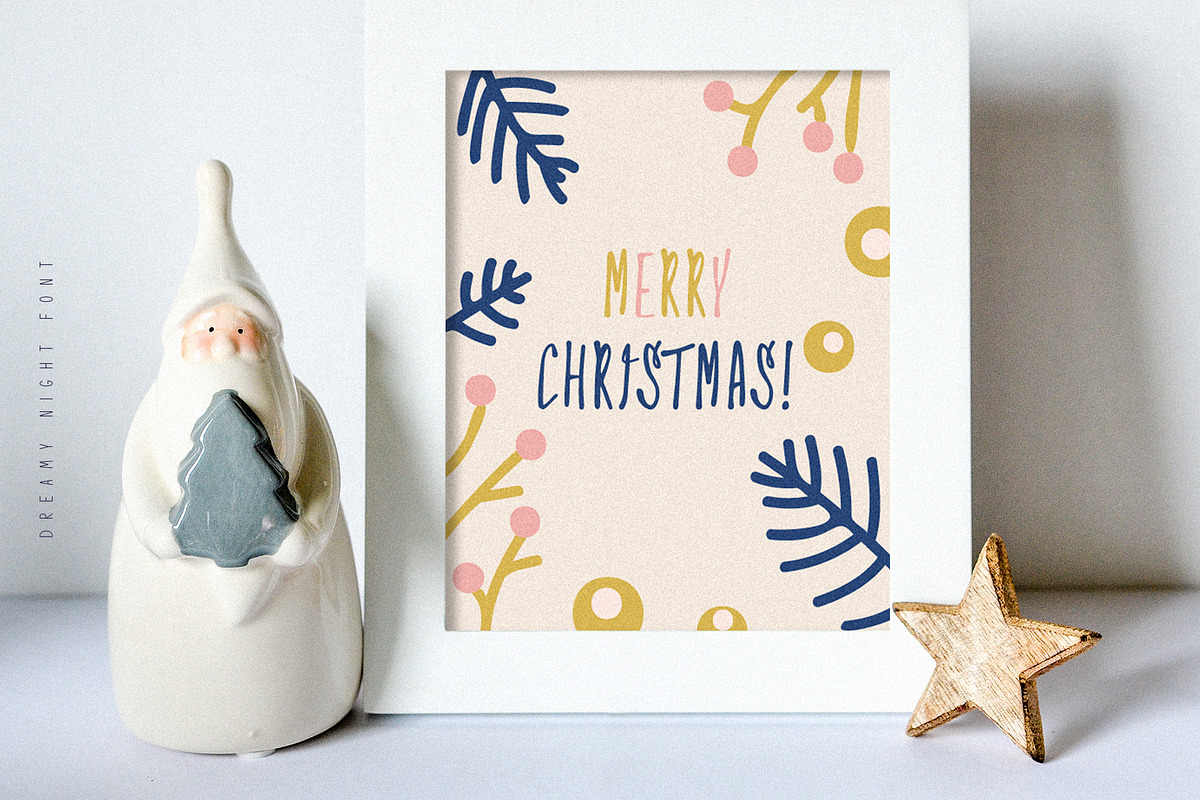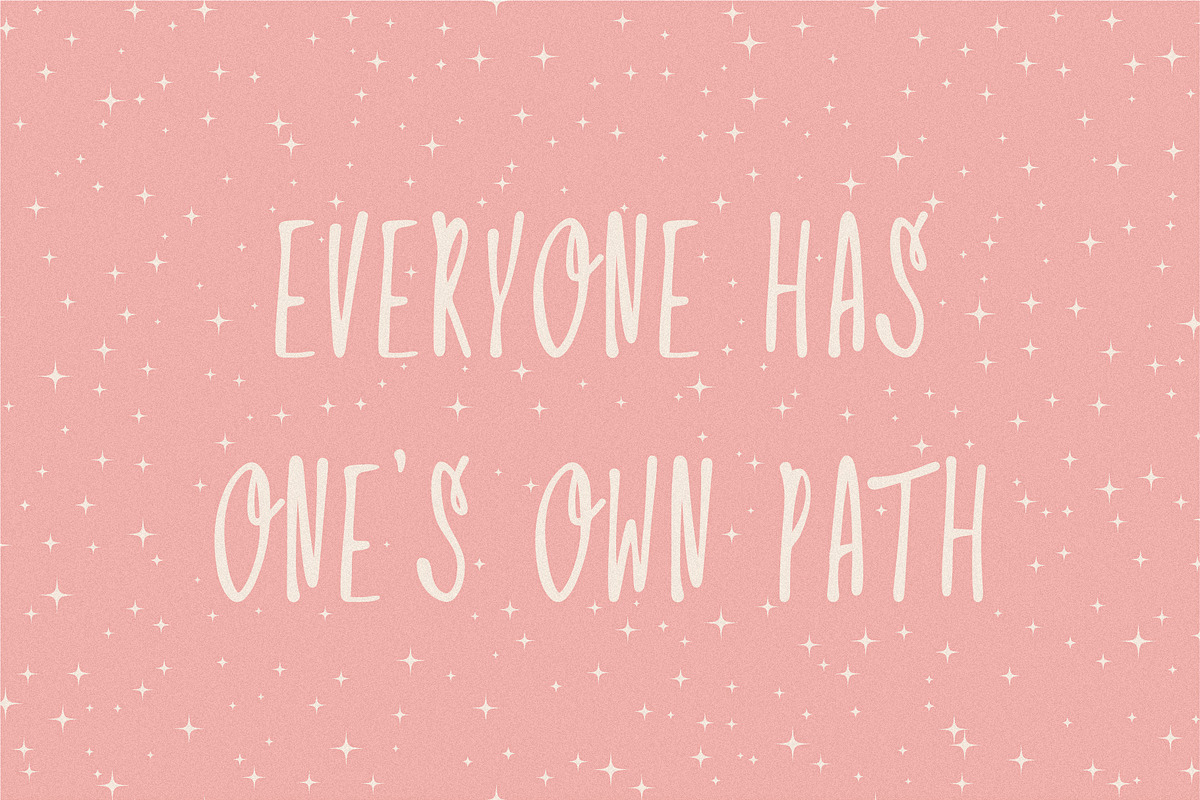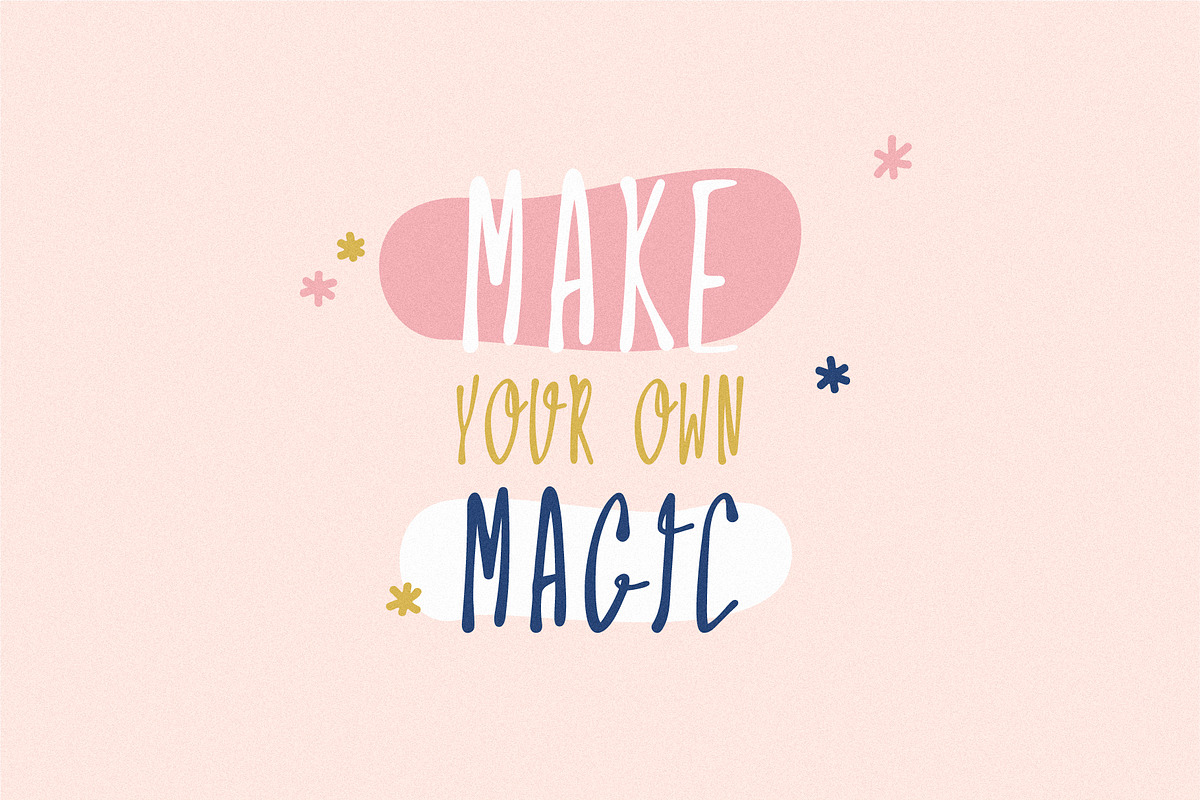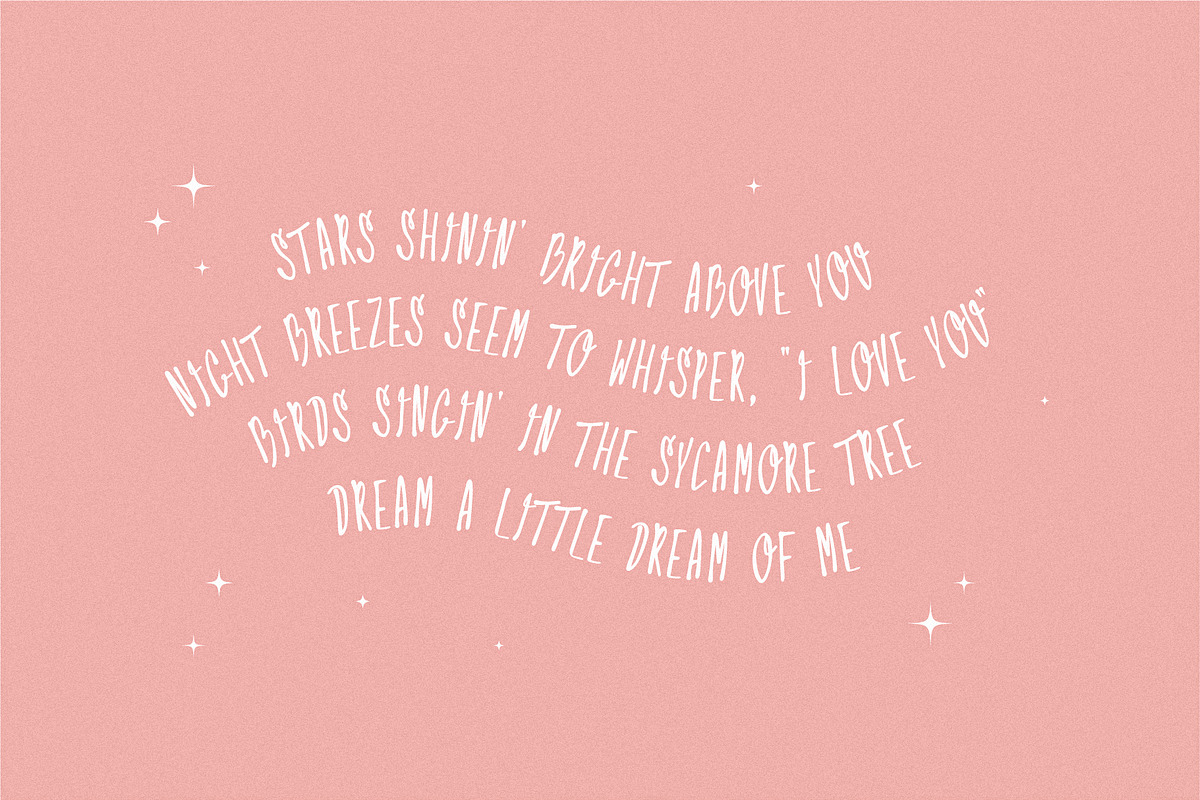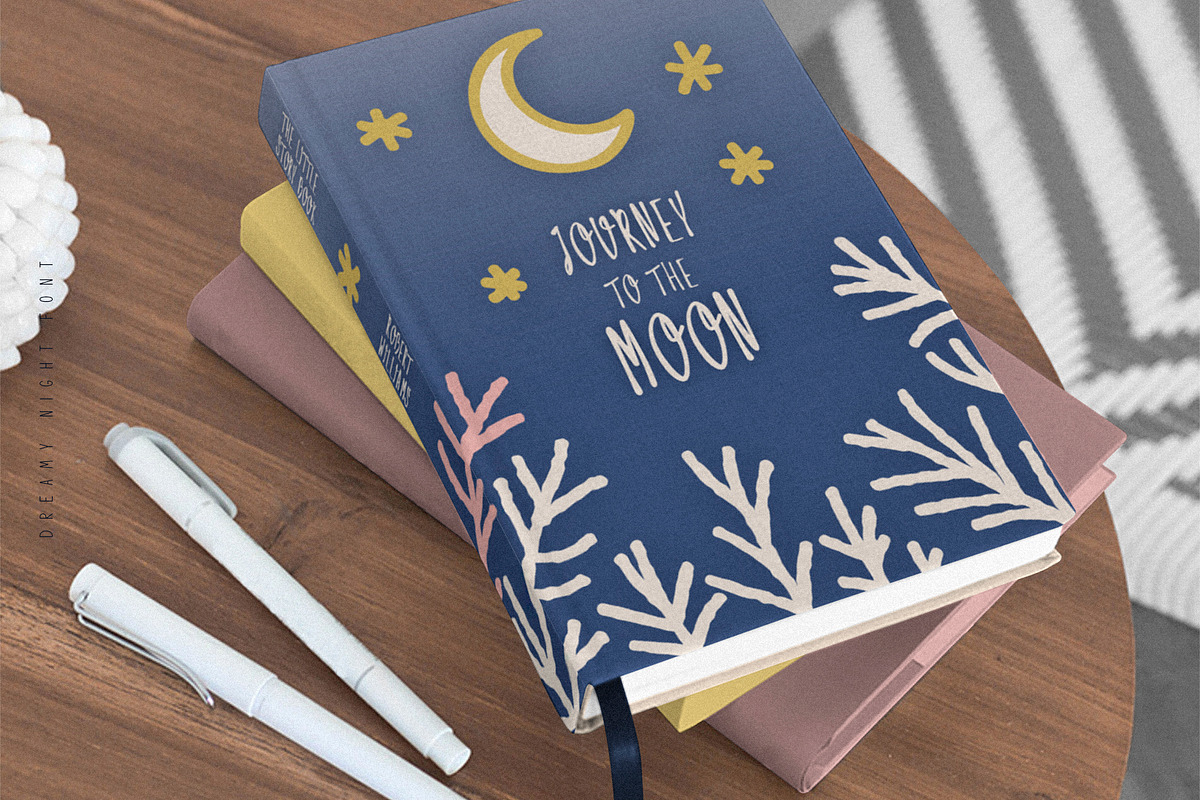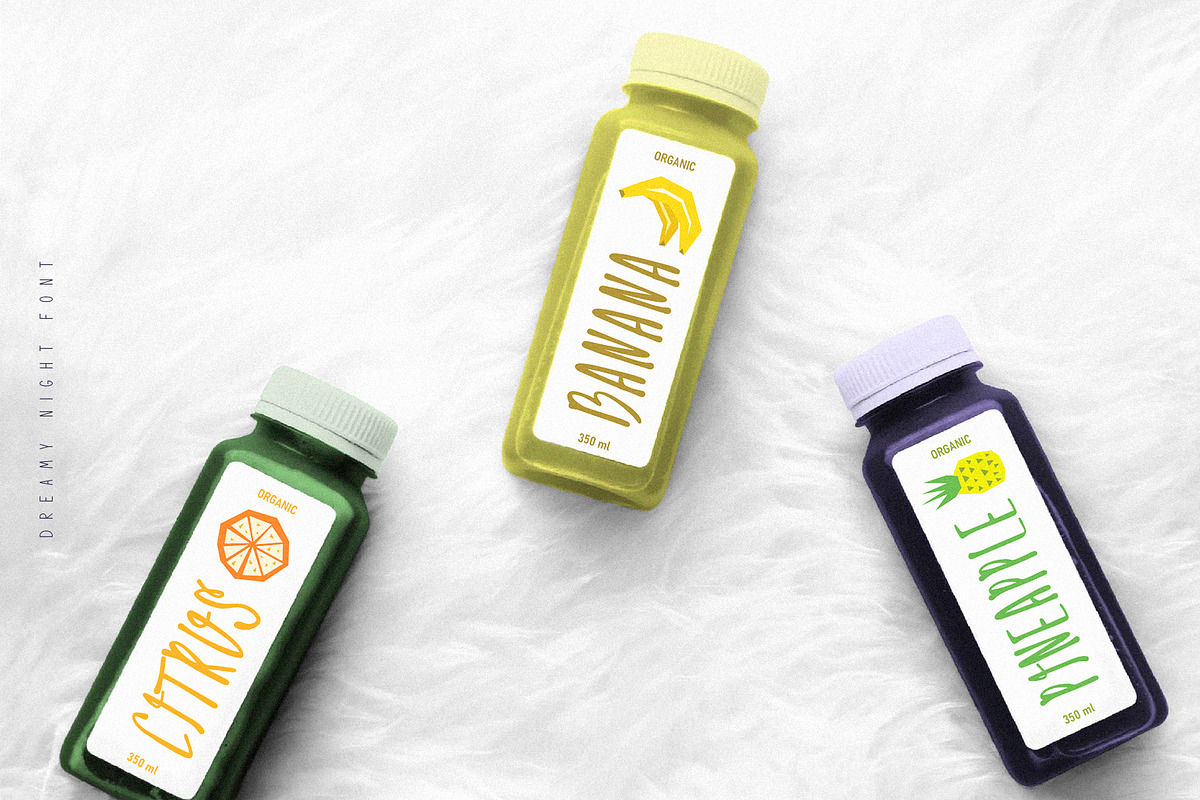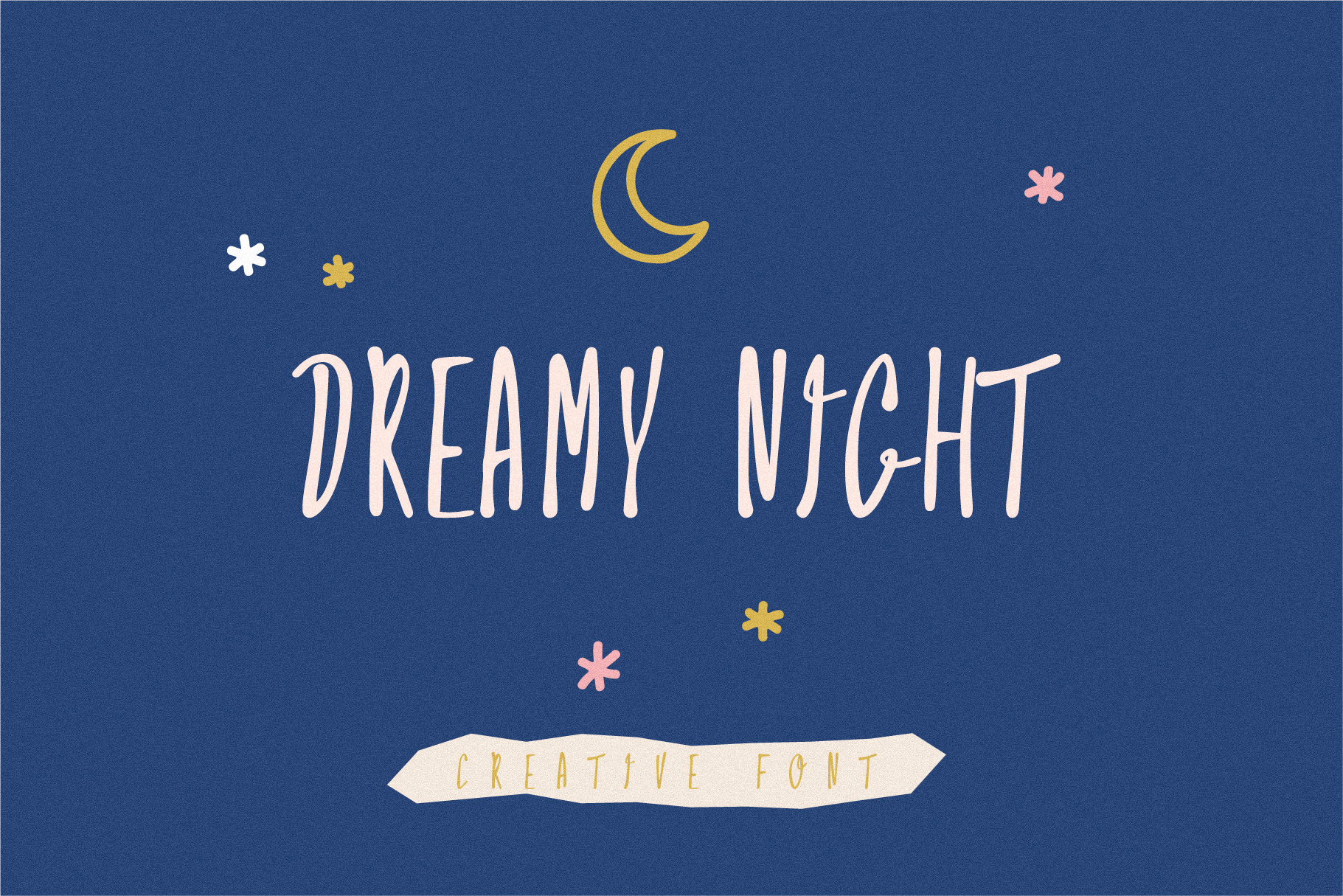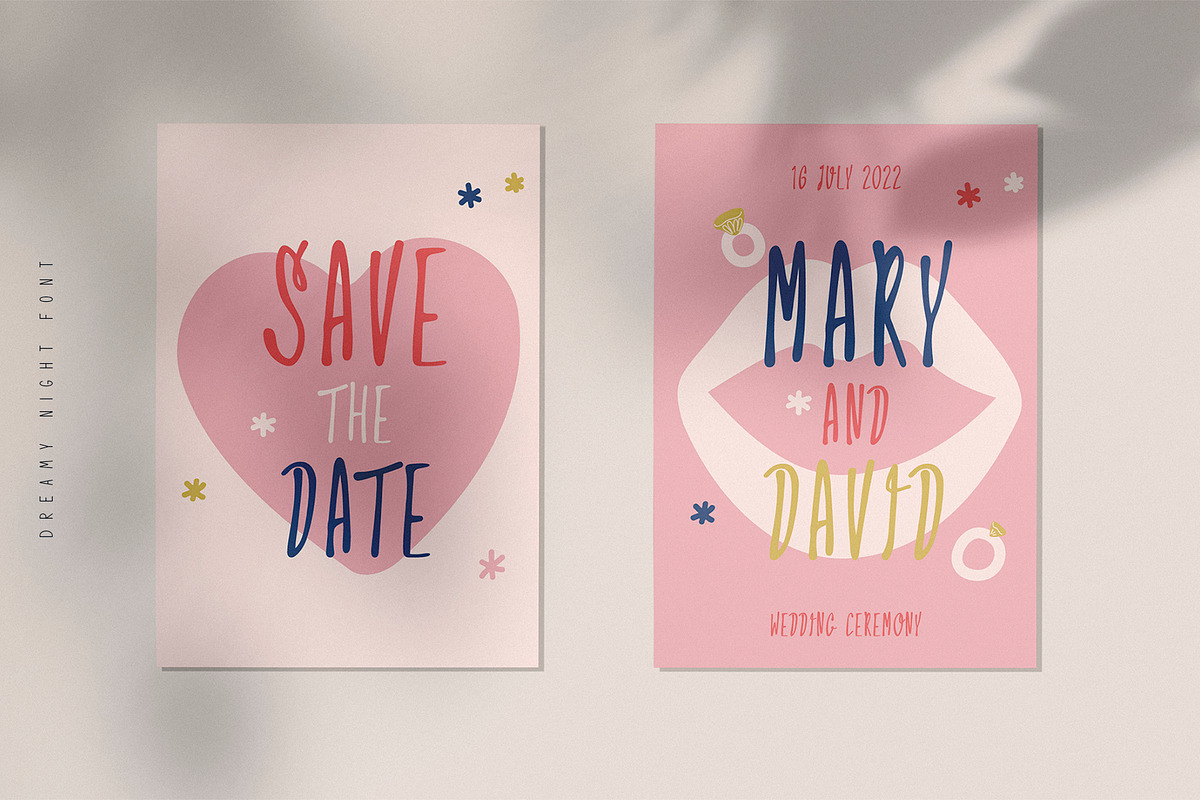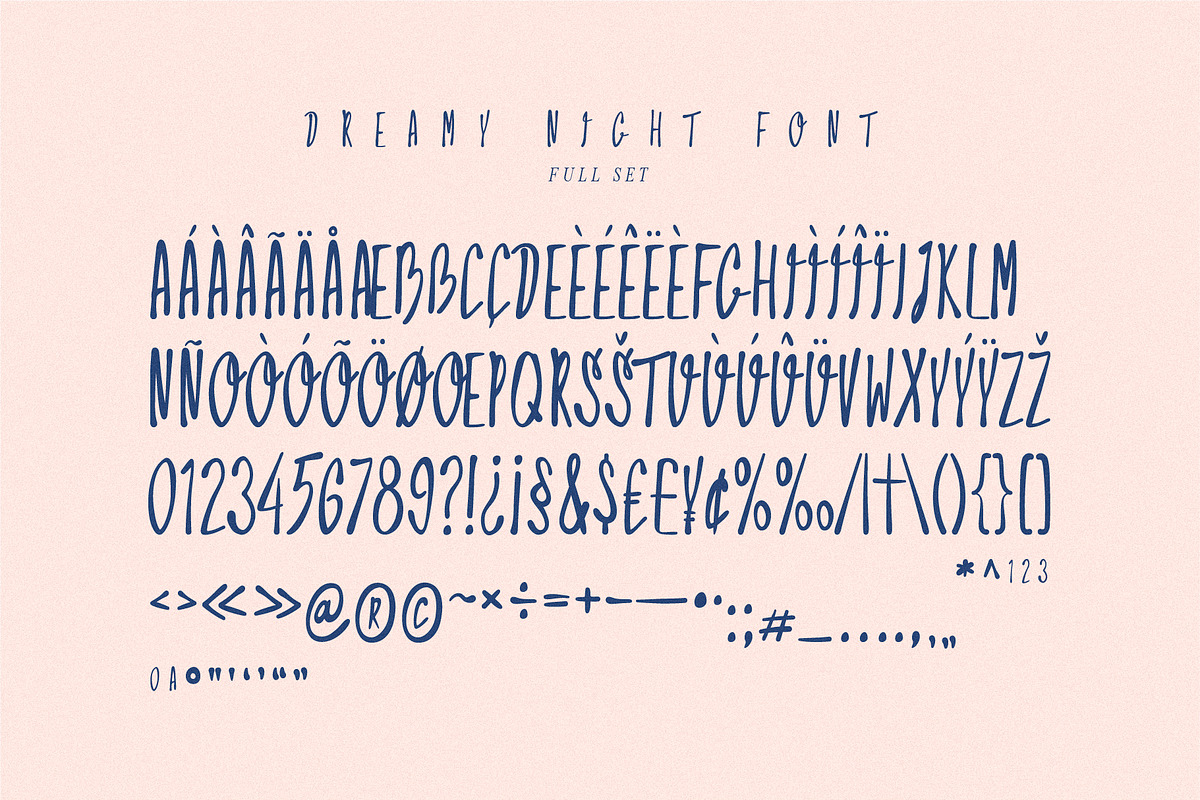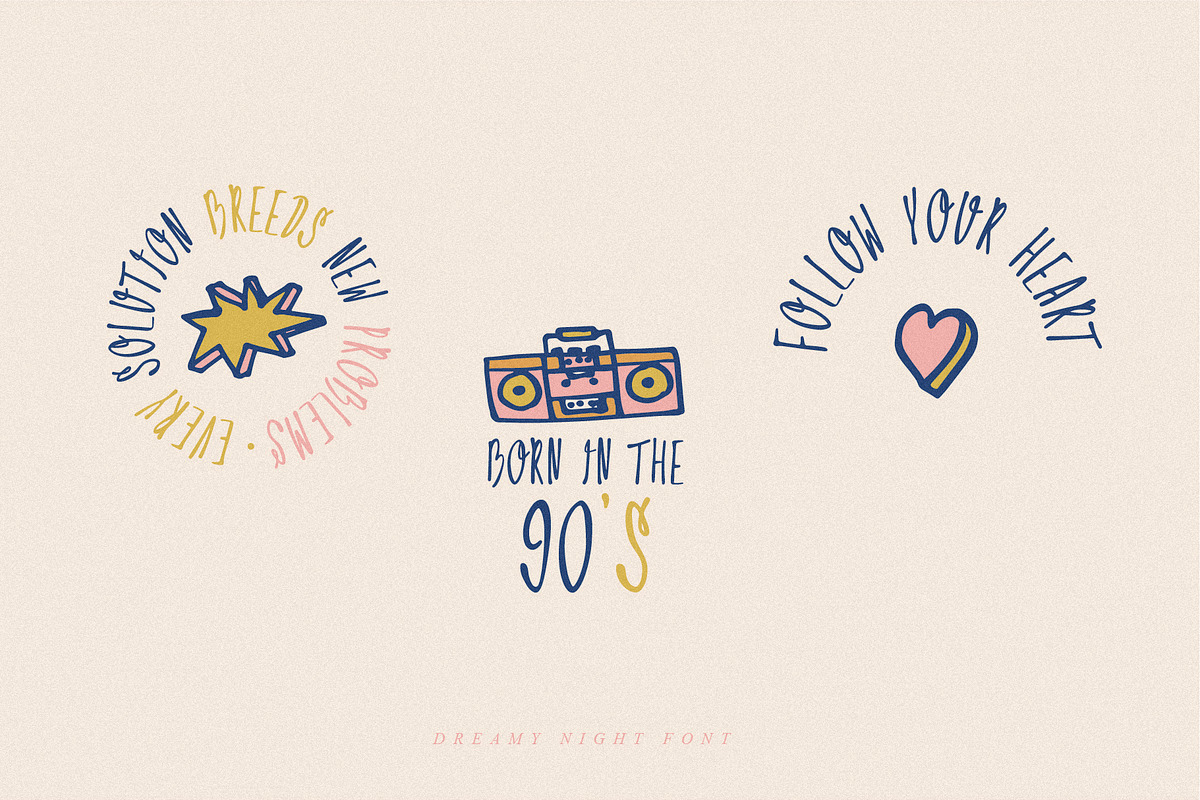
DREAMY NIGHT Creative Font
Dreamy Night is an uppercase decorative font. We've tried to create a cute and simple hand-lettered bubbly sans serif font. This font would be perfect for party invitations, baby showers, birthday cards and more. It includes uppercase basic characters, multilingual symbols, numerals and punctuation. Latin-based Language Support.